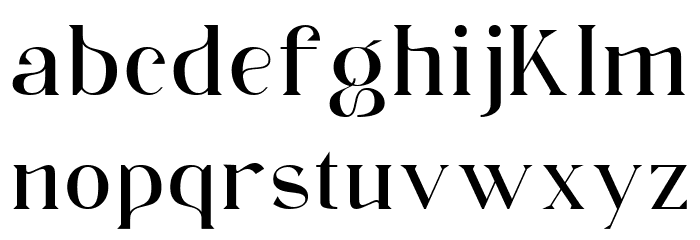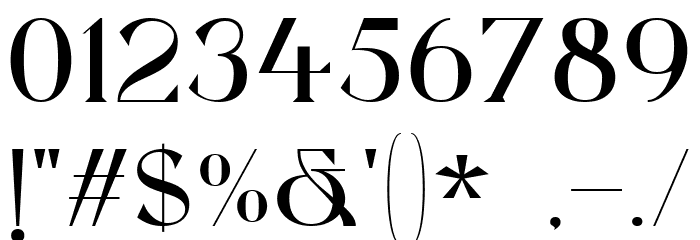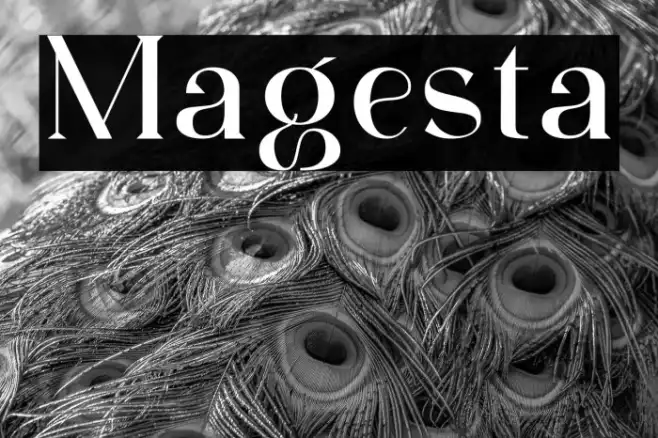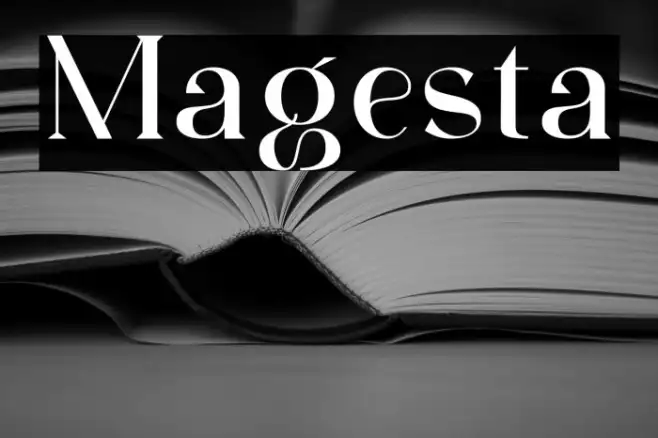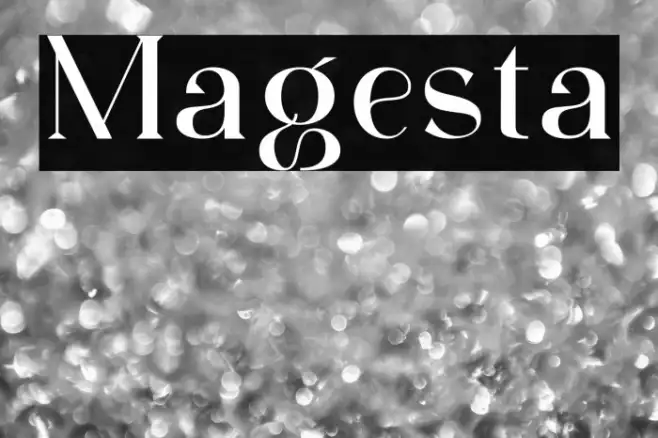
Magesta Font
This font features a sophisticated and elegant design, characterized by its high contrast between thick and thin strokes. The serifs are pronounced, adding a touch of classic elegance, while the overall structure maintains a modern appeal. The uppercase letters exhibit a strong presence with their tall, narrow forms, while the lowercase letters are more rounded and approachable. The numerals are consistent with the font's refined style, offering clear readability. Special characters are thoughtfully designed, maintaining the font's cohesive aesthetic.
A high-contrast serif font with elegant, modern styling.